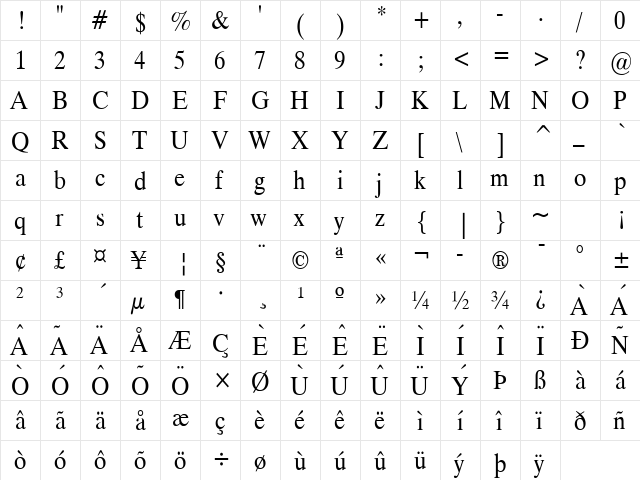
Duke Normal
Design Context for Duke Typeface
Duke offers clean, dependable letterforms without strong stylistic allegiance, making it a practical choice for designers who need flexibility.
Pro Tip: Pair Duke with a font of contrasting weight or personality to build a more expressive typographic hierarchy.